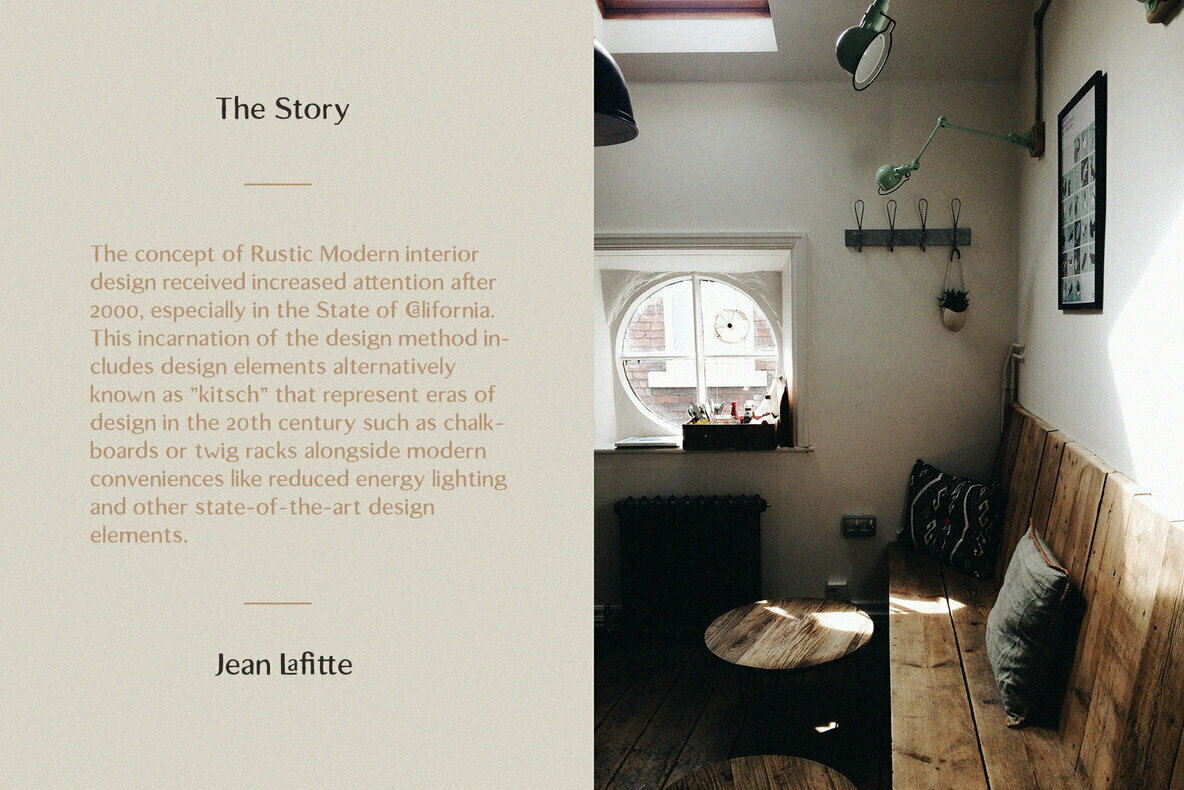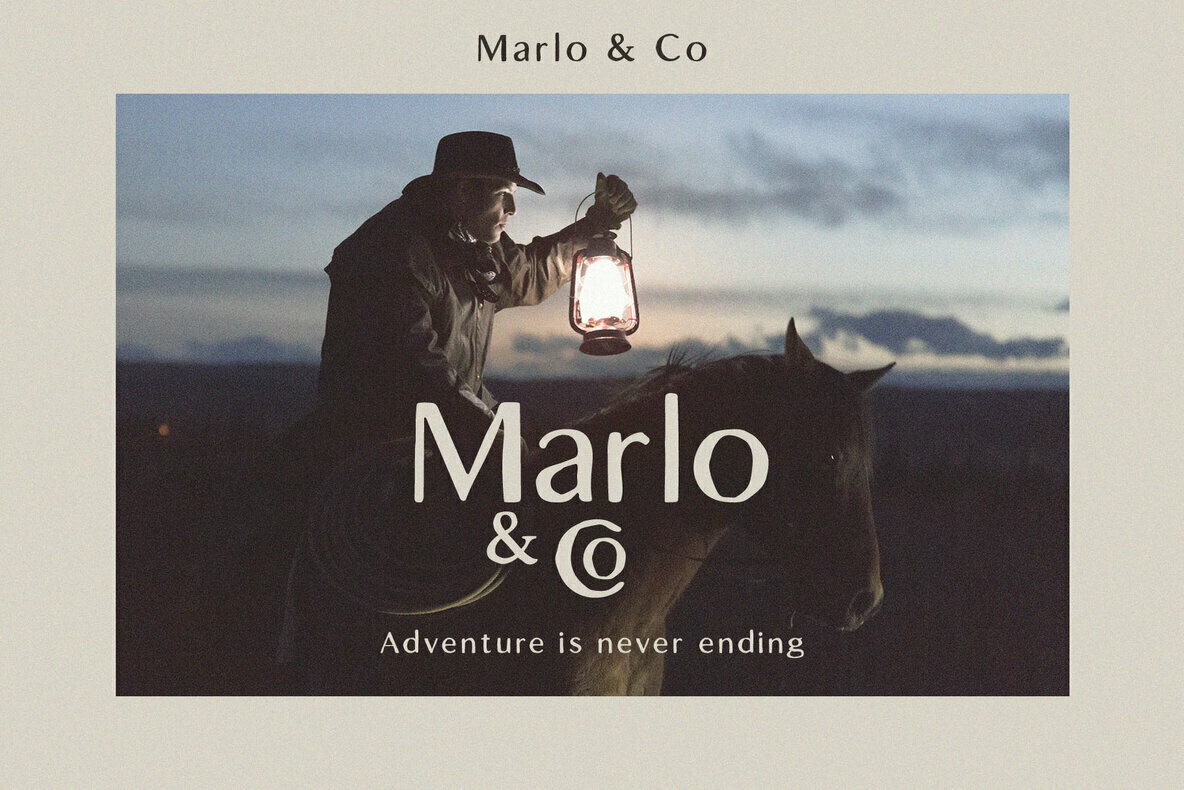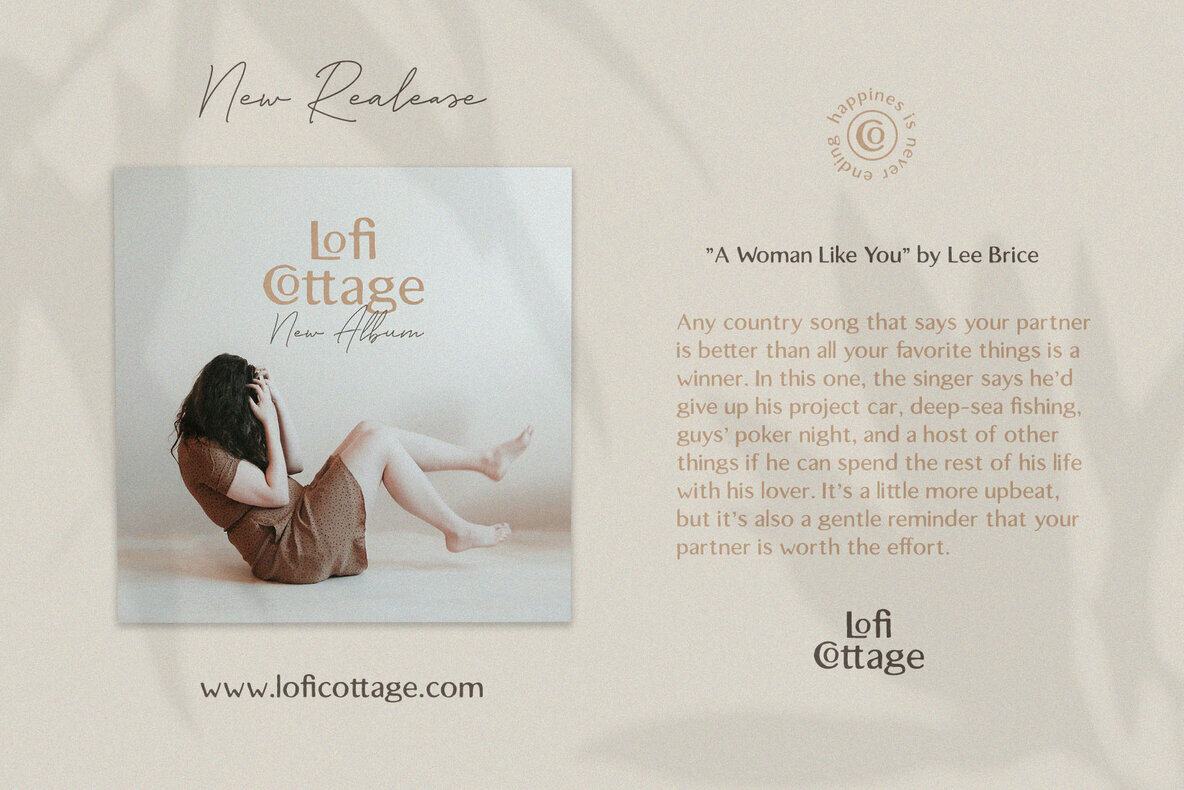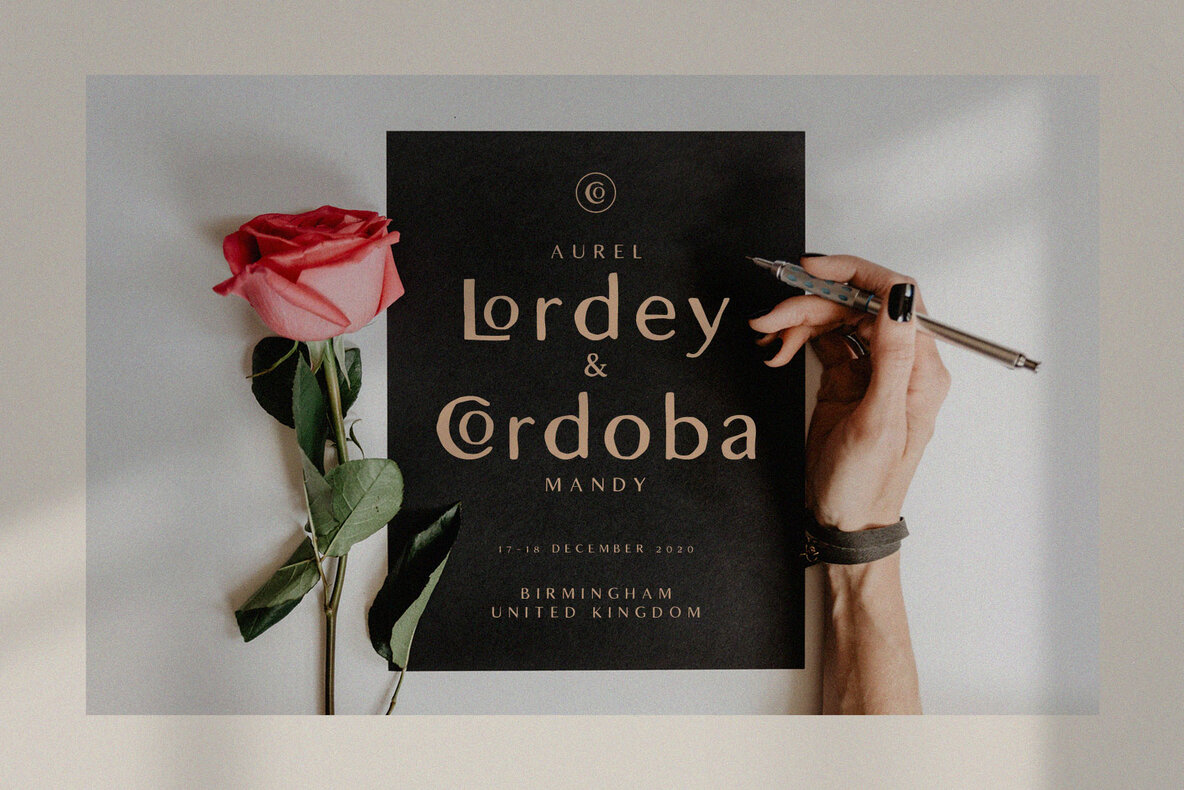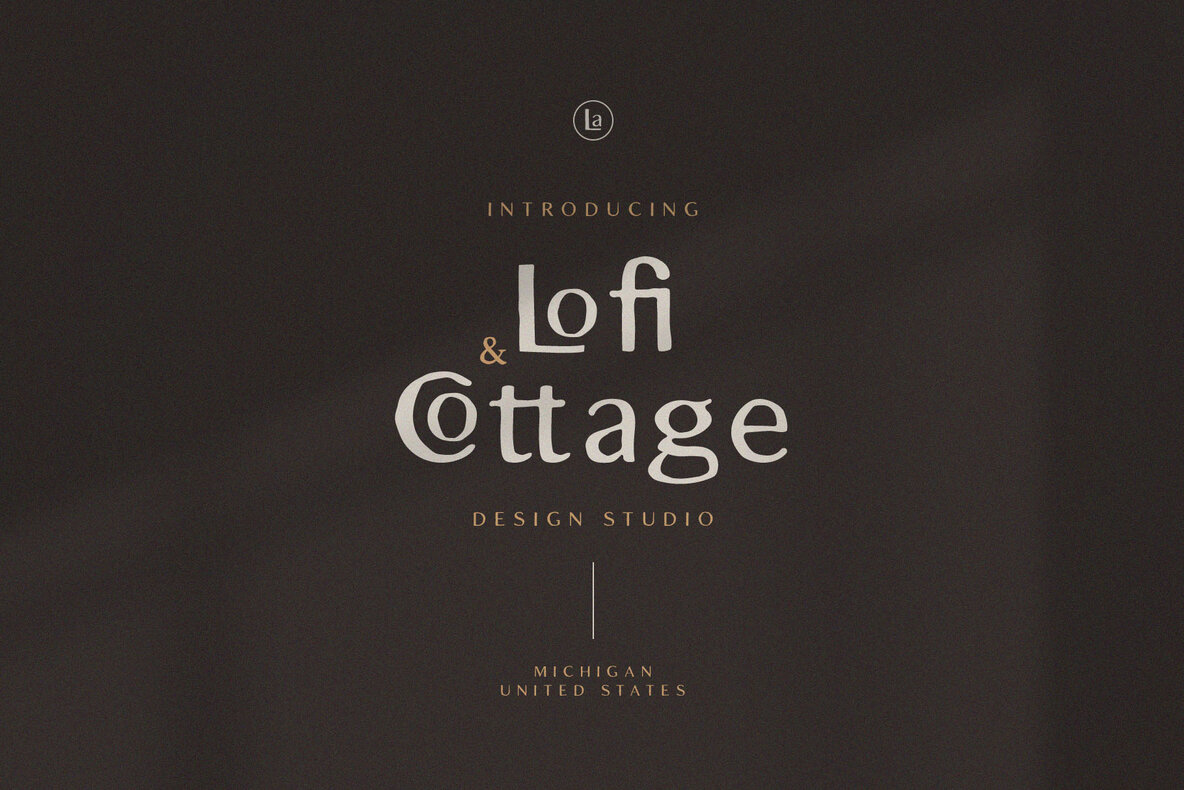
Lofi Cottage
The charm of a rustic aesthetic is effortlessly captured by Lofi Cottage, a sans serif font by Craft Supply Co. Perfectly suited for print design projects, its versatile nature allows you to explore a wide array of creative possibilities, resulting in visually captivating works. Whether you are crafting a distinctive greeting card, innovative package design, or a cohesive brand identity, Lofi Cottage brings a lively touch to each endeavor. This font lends itself well to craft designs, DIY projects, book titles, wedding themes, and vintage or retro-styled artworks, ensuring your creations maintain a trendy and polished appeal. Features: No special software is needed to enjoy the full range of features that Lofi Cottage offers, making it an accessible choice for designers of all levels.Lofi Cottage: Rustic Sans Serif for Timeless Design